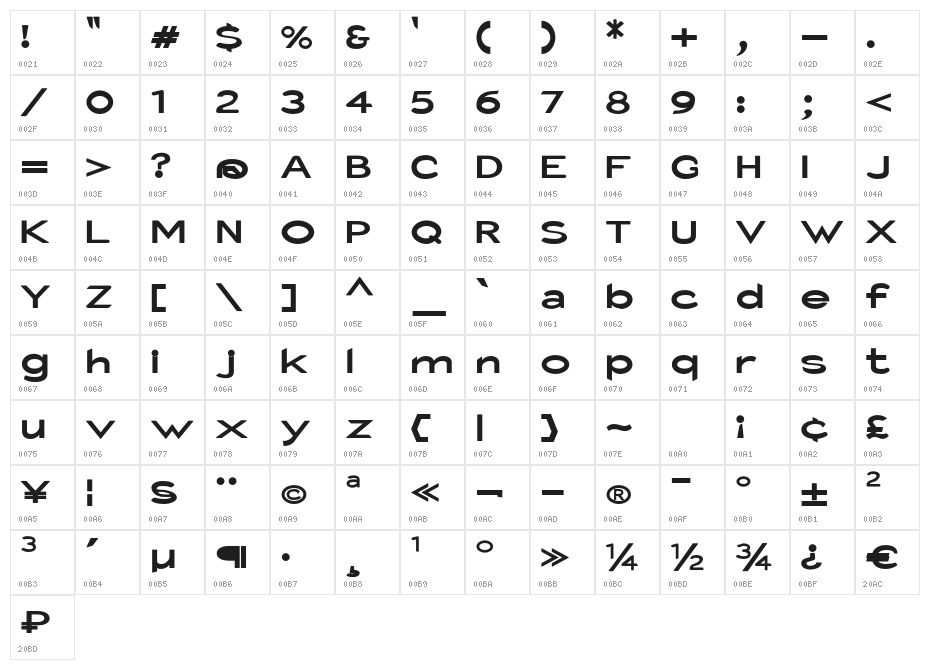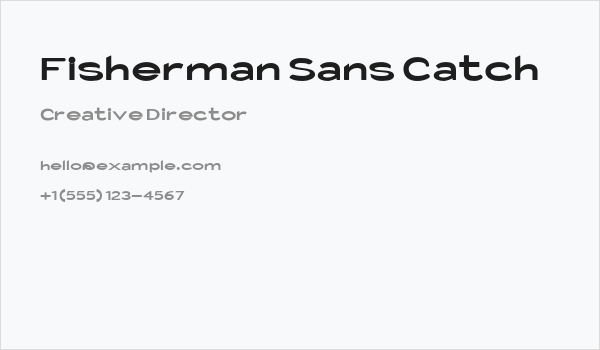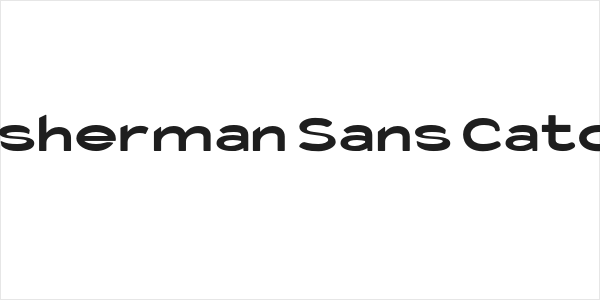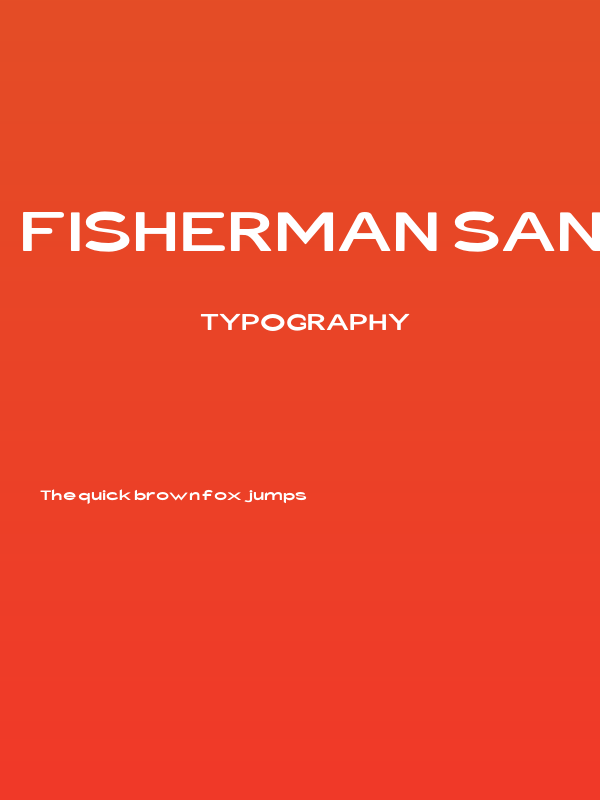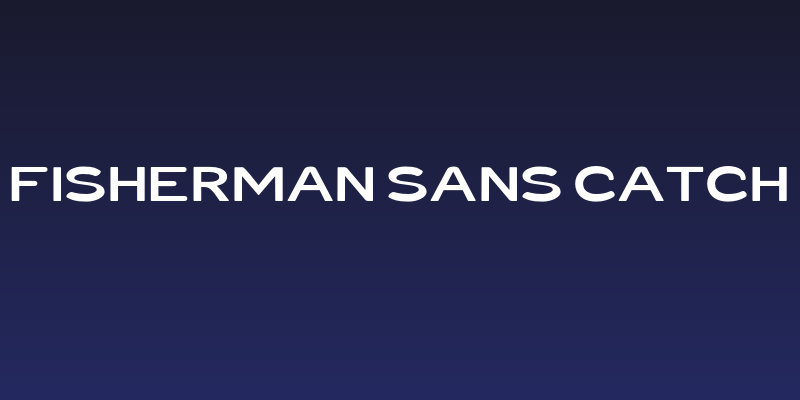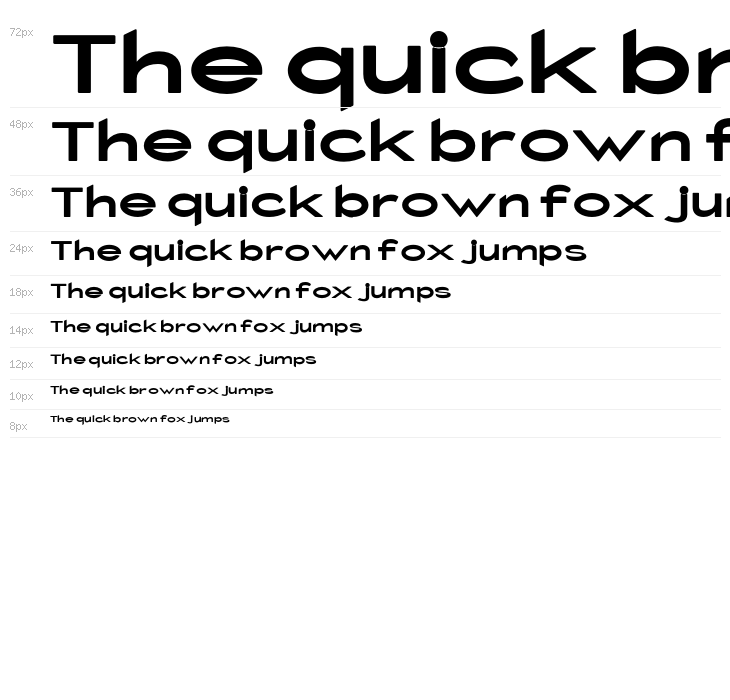
Fisherman Sans Catch Font
Fisherman Sans Catch Description
This font features a clean and modern sans-serif design with a geometric structure. The characters are bold and rounded, providing a friendly and approachable appearance. The uppercase letters are uniform in height, while the lowercase letters maintain a consistent x-height, contributing to its readability. The numerals are proportional, aligning well with the overall style. Special characters are distinct and maintain the geometric theme, enhancing the font's versatility. The smooth curves and balanced proportions make it suitable for a variety of design applications.
| Proposed Projects | Ideal for branding, advertising, web design, and print media where a modern and approachable look is desired. |